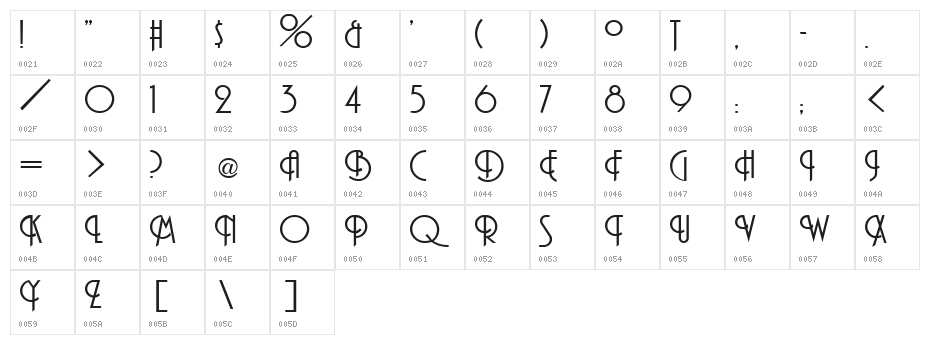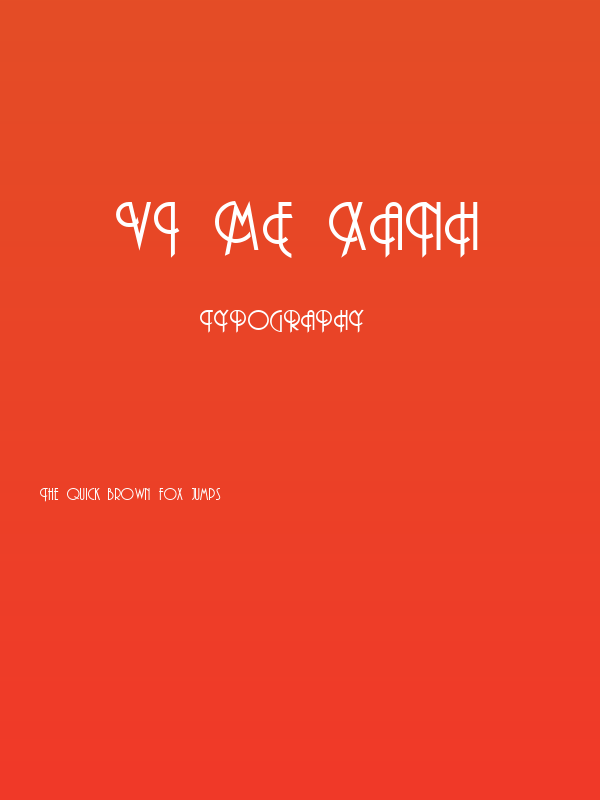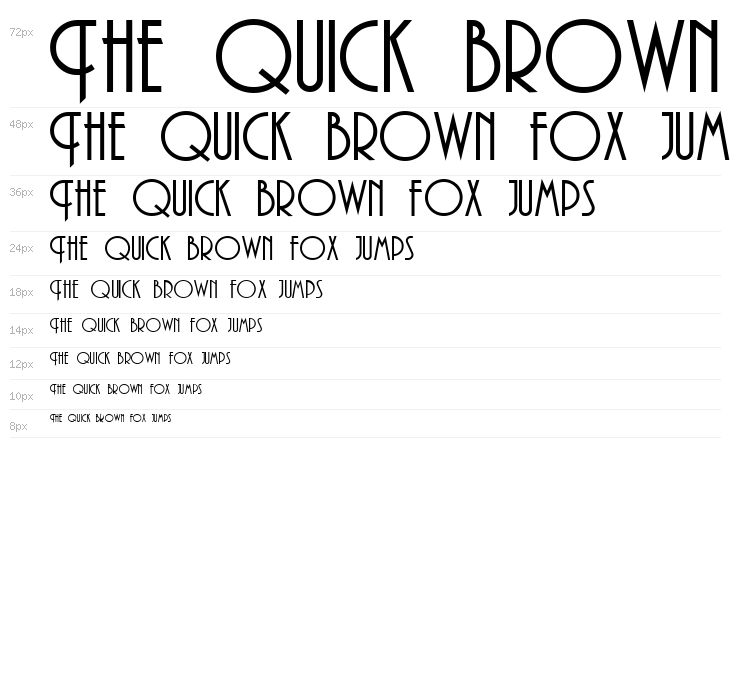
VI Me Xanh Font
VI Me Xanh Description
This font features a unique and artistic design with a blend of geometric and decorative elements. The uppercase letters are characterized by their bold, angular shapes and intricate details, creating a striking visual impact. The lowercase letters maintain a consistent style, with a slightly more streamlined appearance. The numerals are distinct and easy to read, while the special characters complement the overall aesthetic. This font's design is both modern and vintage, making it versatile for various creative projects.
Overall StyleModern, Vintage
Proposed ProjectsIdeal for branding, poster design, album covers, and any project requiring a bold, artistic touch.